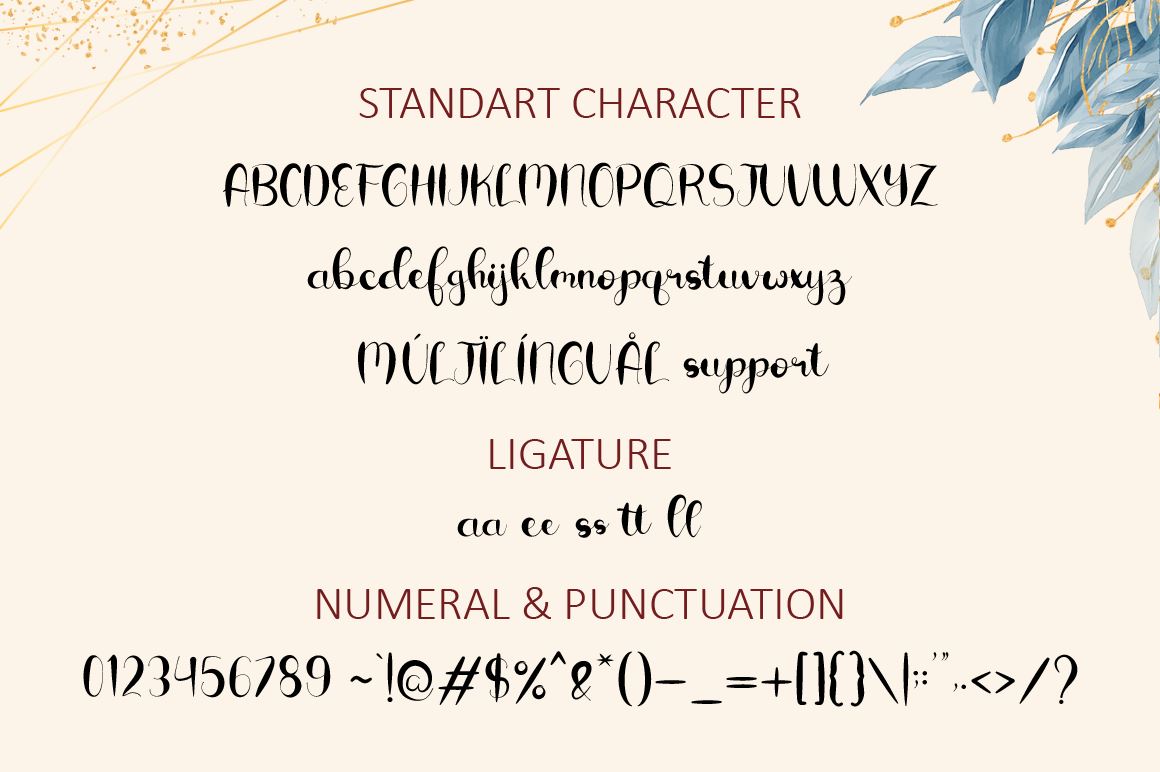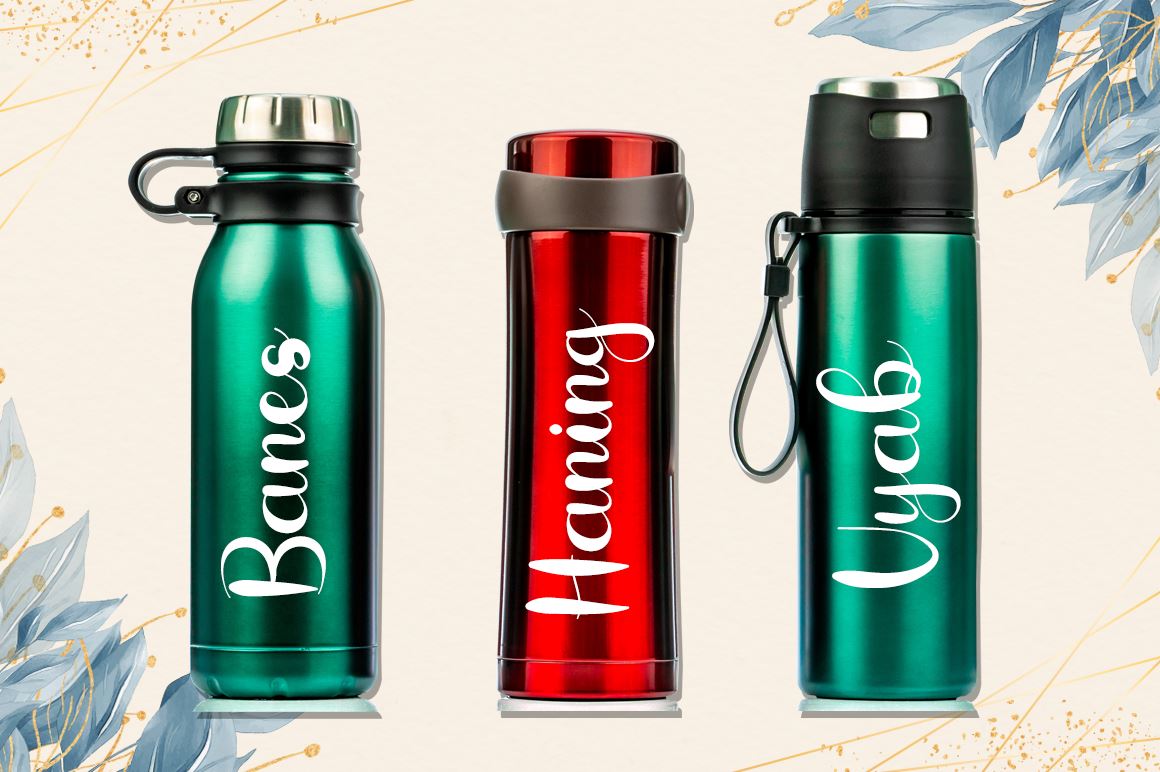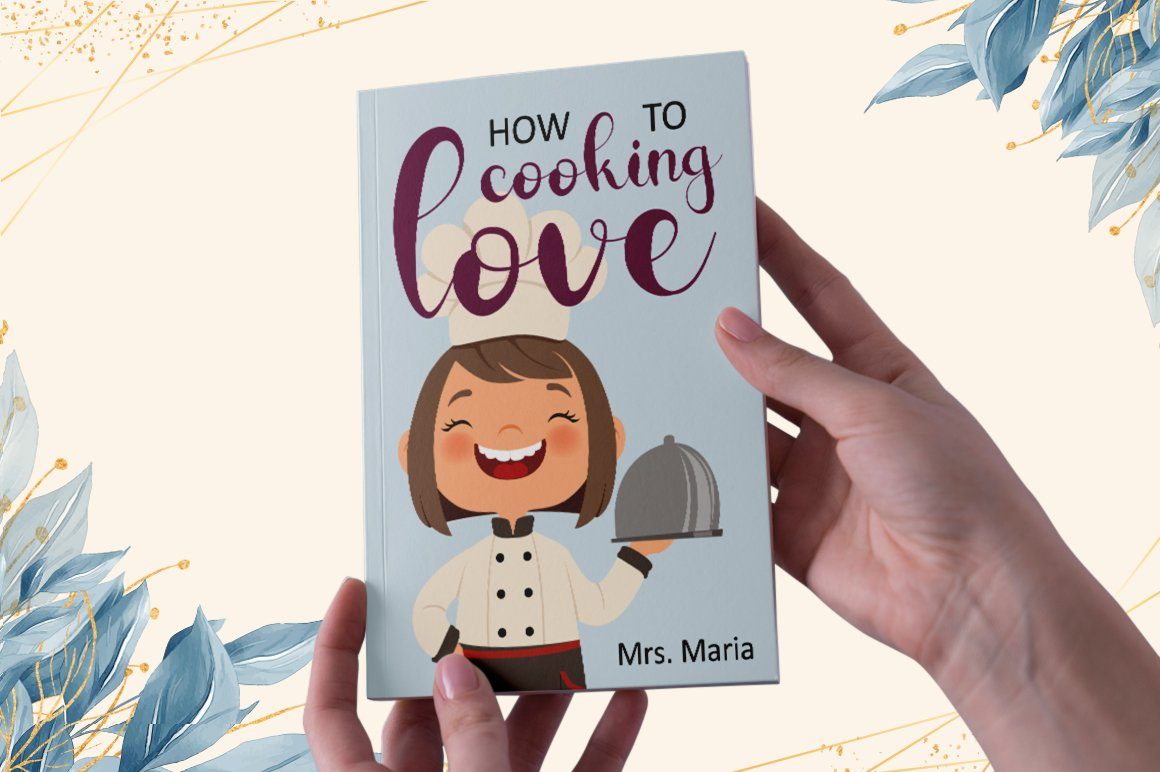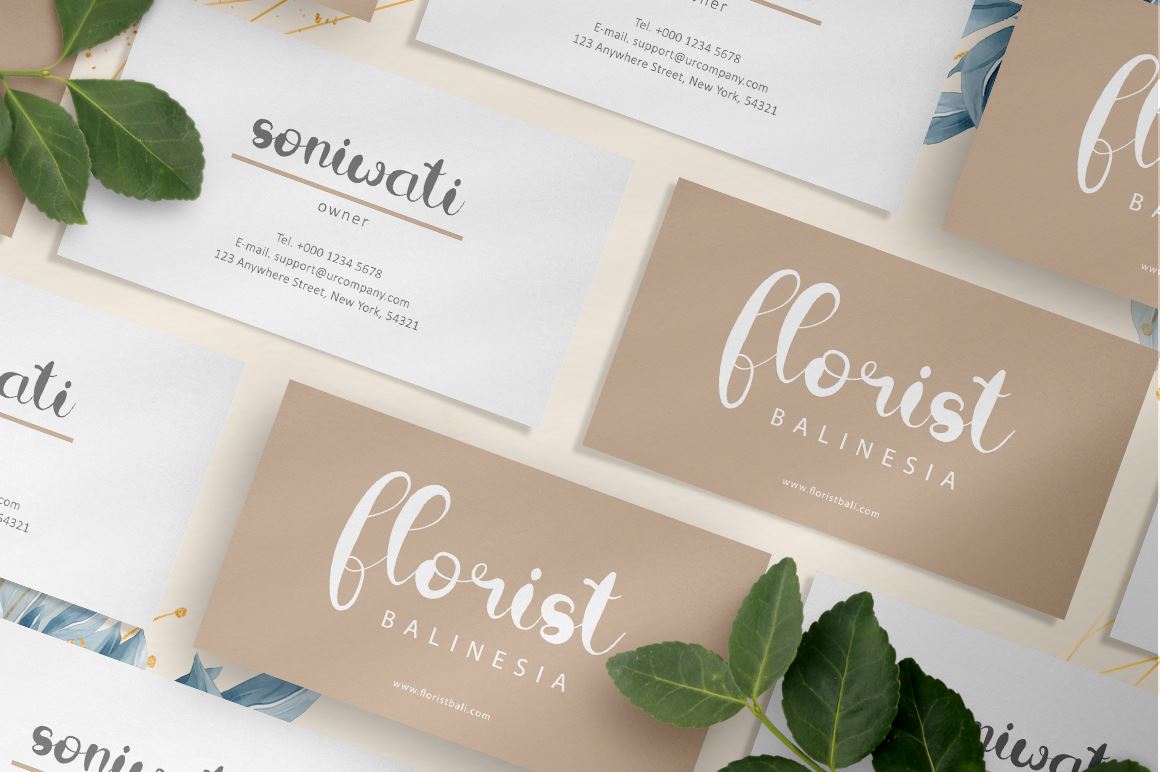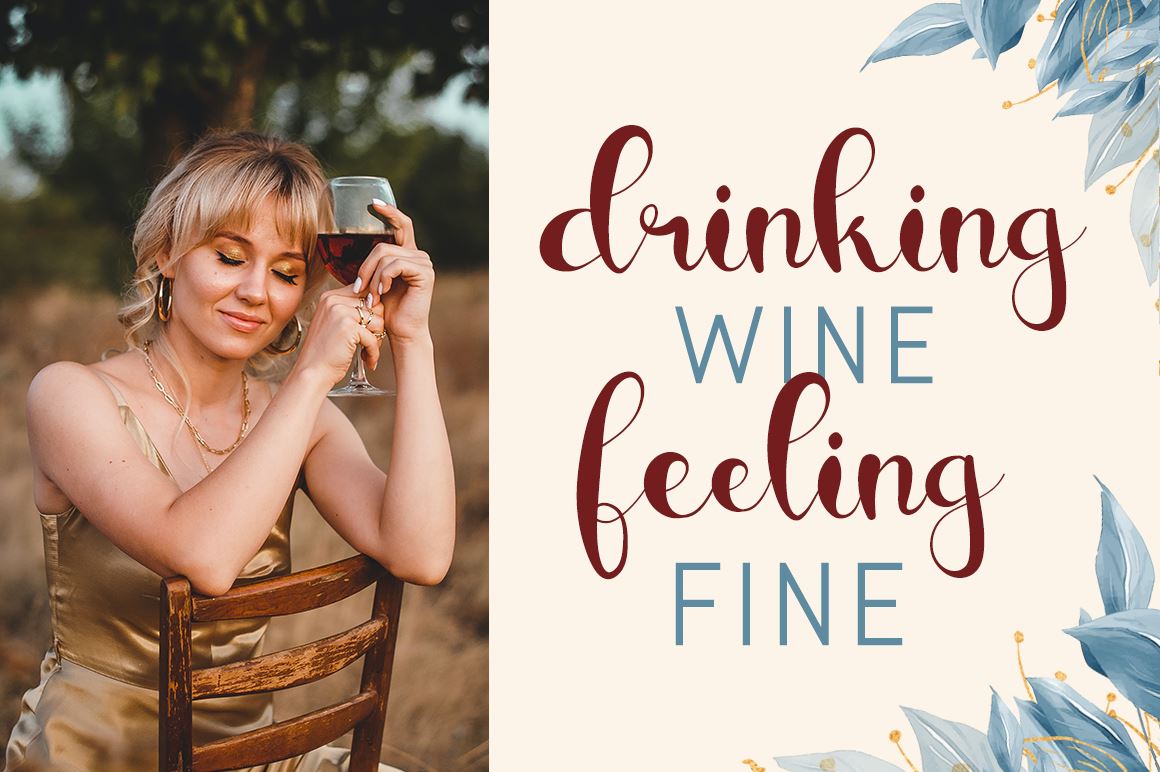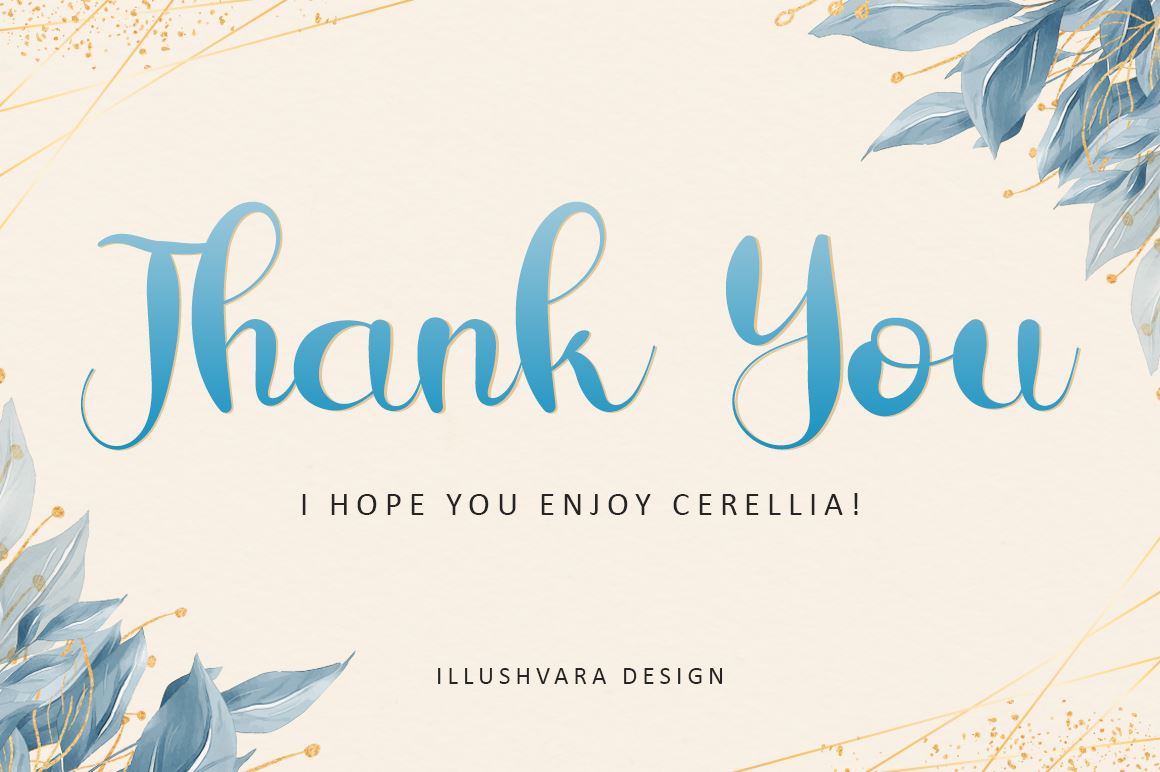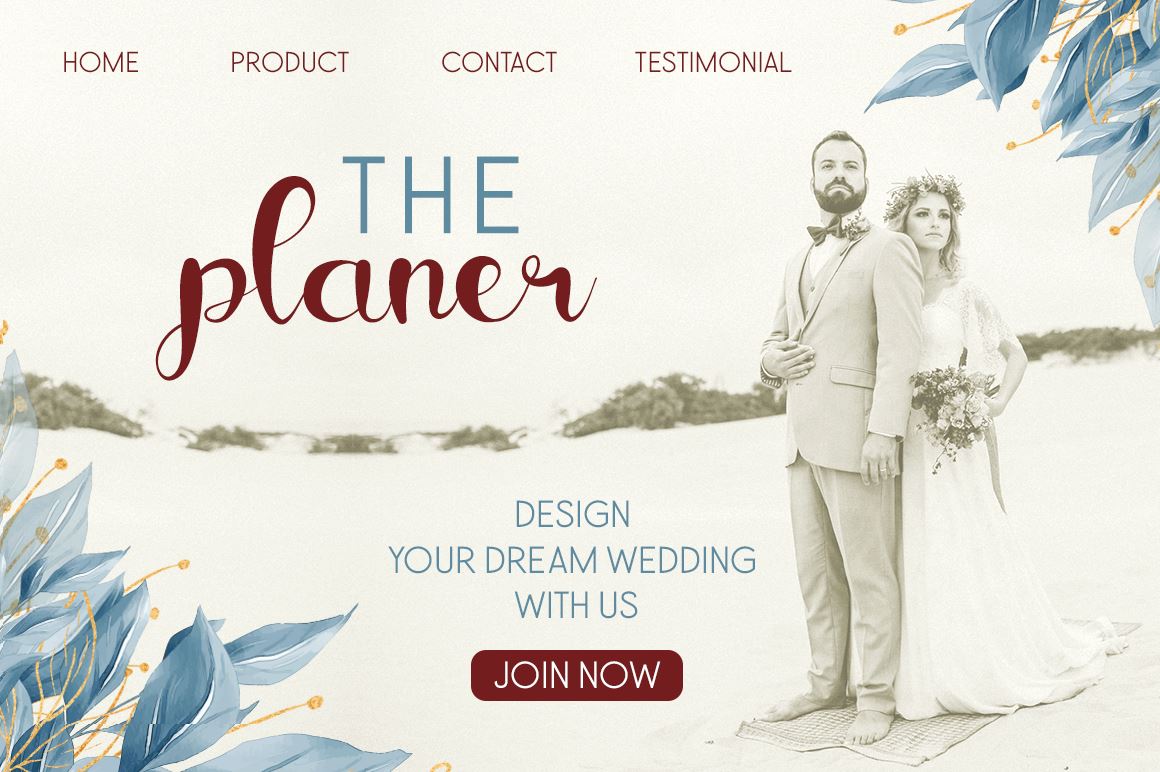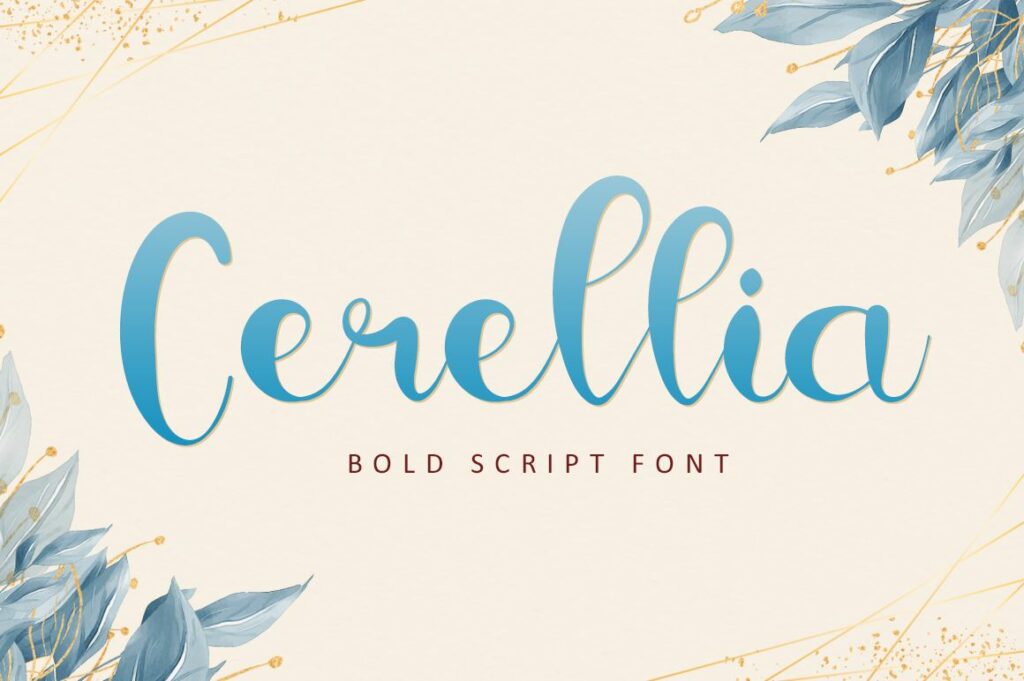
Cerellia – Bold Script Font
About Cerellia – Bold Script Font
Cerellia is a bold script font, carefully handcrafted to become a true favorite. Its casual charm makes it appear wonderfully down-to-earth, readable and, ultimately, incredibly versatile. Fall in love with its incredibly versatile style and use it to create spectacular designs!